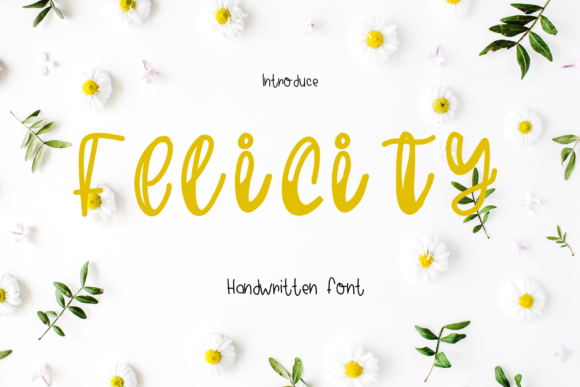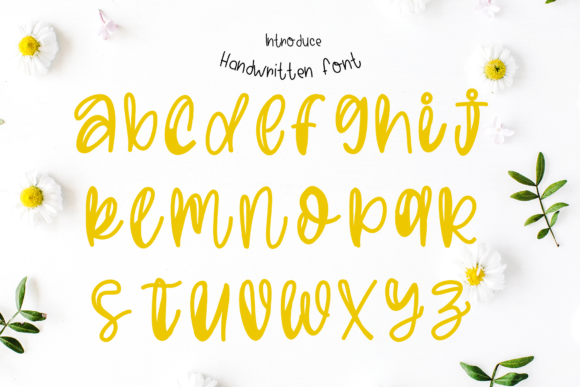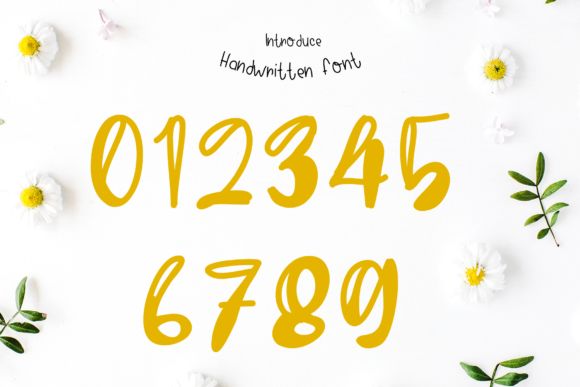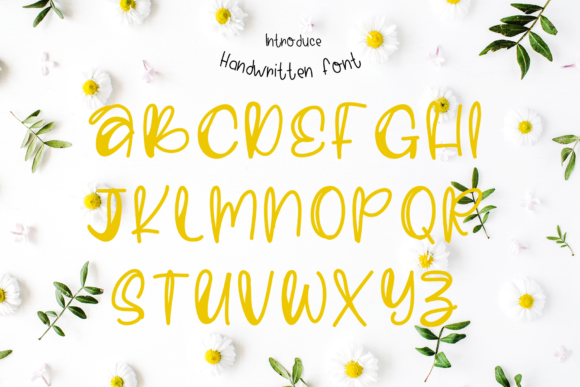
Felicity Font
About Felicity Font
Felicity is a delightful and flowing handwritten font that radiates joy and exuberance. Its unique and distinct style makes it a perfect choice for a wide range of design projects, infusing them with a sense of happiness and creativity. As you add Felicity to your most creative ideas, you’ll quickly notice how it breathes life into your work, making it come alive with its playful charm.
This font’s joyful and lively nature makes it a wonderful option for a multitude of designs. Whether you’re crafting vibrant posters, cheerful greeting cards, captivating logos, or eye-catching social media graphics, Felicity adds a touch of whimsy and positivity that instantly draws attention.
With its smooth and flowing lines, Felicity captures the essence of carefree brush strokes, giving your text an organic and handwritten appearance. This authenticity adds a personal touch to your designs, making them feel warm and welcoming to your audience.
Felicity’s versatility shines through in both formal and informal settings. It works wonders in crafting invitations for celebrations, bringing a sense of joy and anticipation to your event. On the other hand, it brings a refreshing and relaxed vibe to casual projects, making it an excellent choice for creating engaging quotes and inspiring messages.
The font’s ability to evoke a feeling of happiness and positivity makes it an ideal companion for children’s books, playful packaging, and delightful stationery. It effortlessly captures the spirit of joy and imagination, resonating with the young and the young at heart.
Whether you’re working on digital designs or print media, Felicity remains highly legible and engaging. Its cheerful and dynamic character ensures that your message is conveyed with enthusiasm and impact, leaving a lasting impression on your audience.
Incorporating Felicity into your designs is a delightful experience in itself. Its lively and distinct letters offer a range of creative possibilities, allowing you to experiment with lettering and customize your designs to perfection.
In conclusion, Felicity is a joyful and flowing handwritten font that brings an abundance of happiness and creativity to any project. With its playful charm and distinct style, it is a versatile choice for a wide variety of designs. Embrace Felicity’s exuberance and watch as your creative ideas come alive with a sense of joy and positivity. Let this font be the cheerful companion that infuses your designs with delight and captures the hearts of your audience.